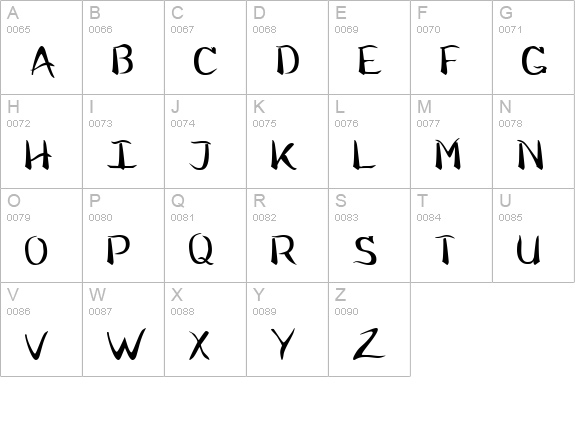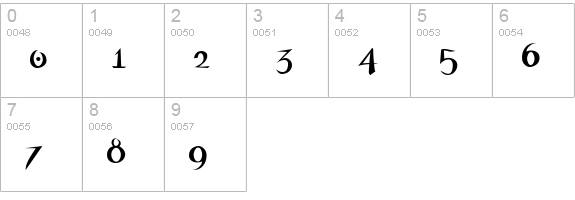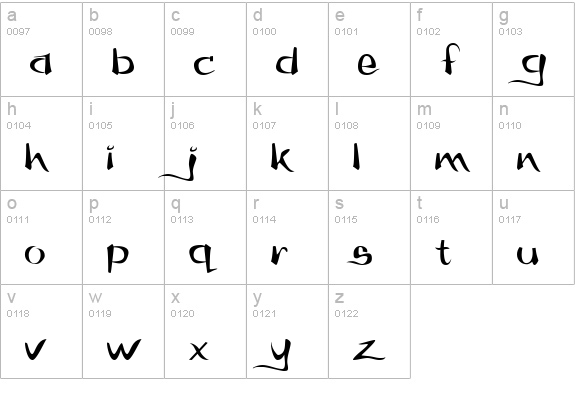
Flow font is a modern and elegant typeface that exudes sophistication and creativity. Its fluid lines and sleek curves make it a versatile choice for a wide range of design projects, from branding to editorial design. The smooth and flowing nature of the letters gives a sense of movement and energy, adding a dynamic touch to any text. One of the best things about Flow font is that it is completely free to download at FontsMarket.com. This means that you can easily access this stylish and contemporary font without any cost, making it a fantastic option for designers looking to enhance their projects without breaking the bank. With its unique aesthetic and easy accessibility, Flow font is sure to become a staple in your font collection.